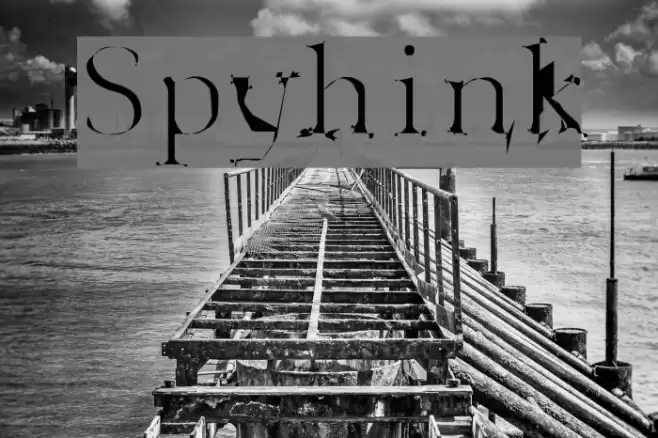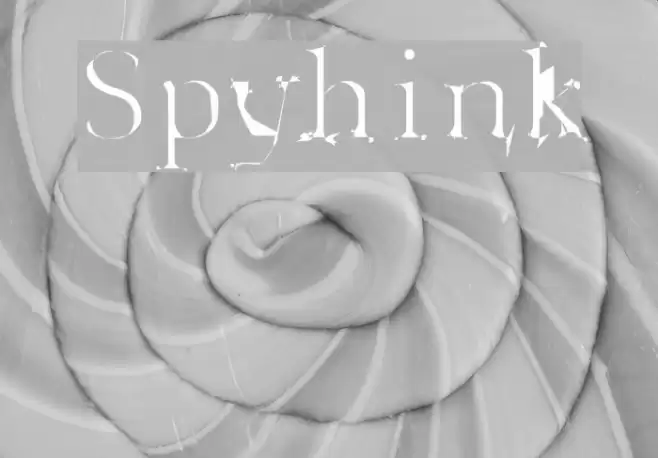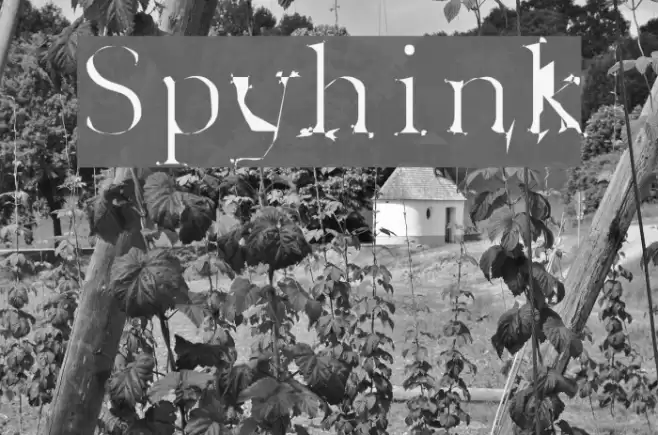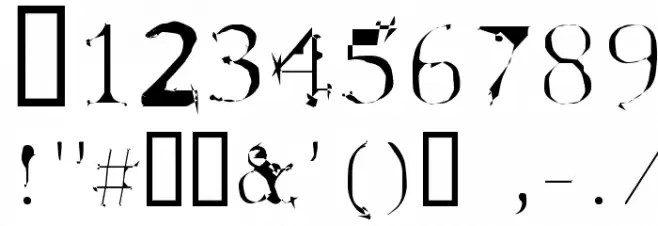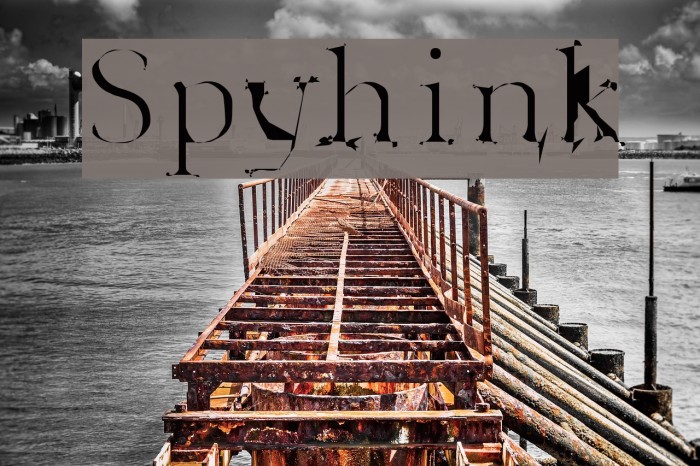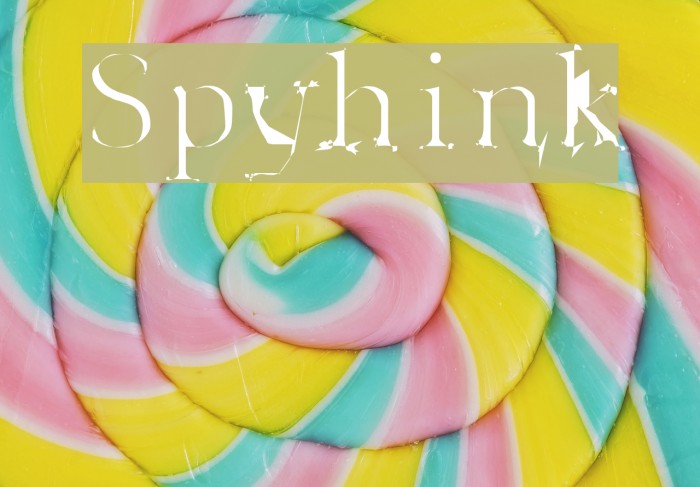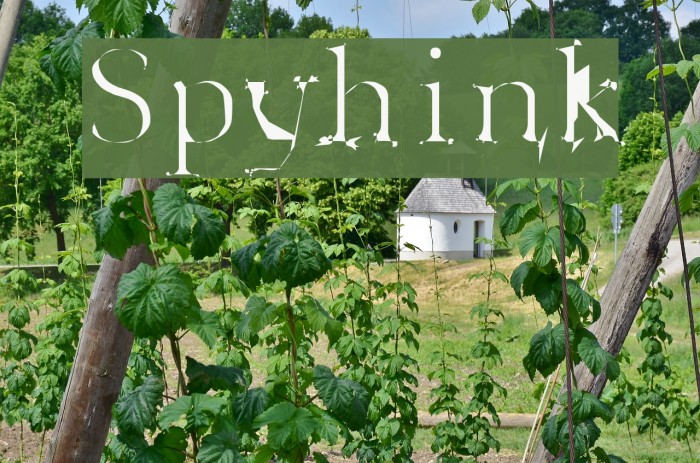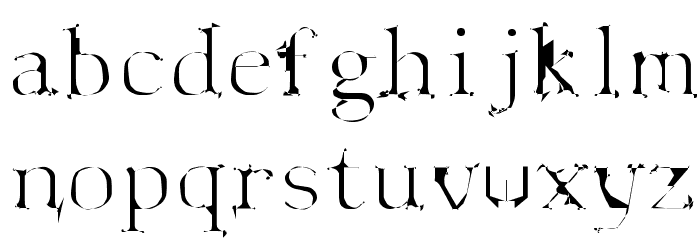
Spyhink Font
Spyhink Description
This font features a distressed and grunge style, characterized by irregular edges and a worn-out appearance. The uppercase and lowercase letters, along with numbers and special characters, exhibit a unique, fragmented texture that gives the impression of decay or erosion. The design is bold and eye-catching, making it suitable for projects that require a rugged and edgy aesthetic. The font maintains a serif structure, which adds a touch of traditional elegance amidst its chaotic presentation. The overall look is both artistic and rebellious, perfect for creative and unconventional designs.
A distressed, grunge-style serif font with a fragmented, worn-out appearance from Serif fonts.
- Proposed Projects: Ideal for album covers, posters, urban-themed designs, and any project needing a bold, edgy look.